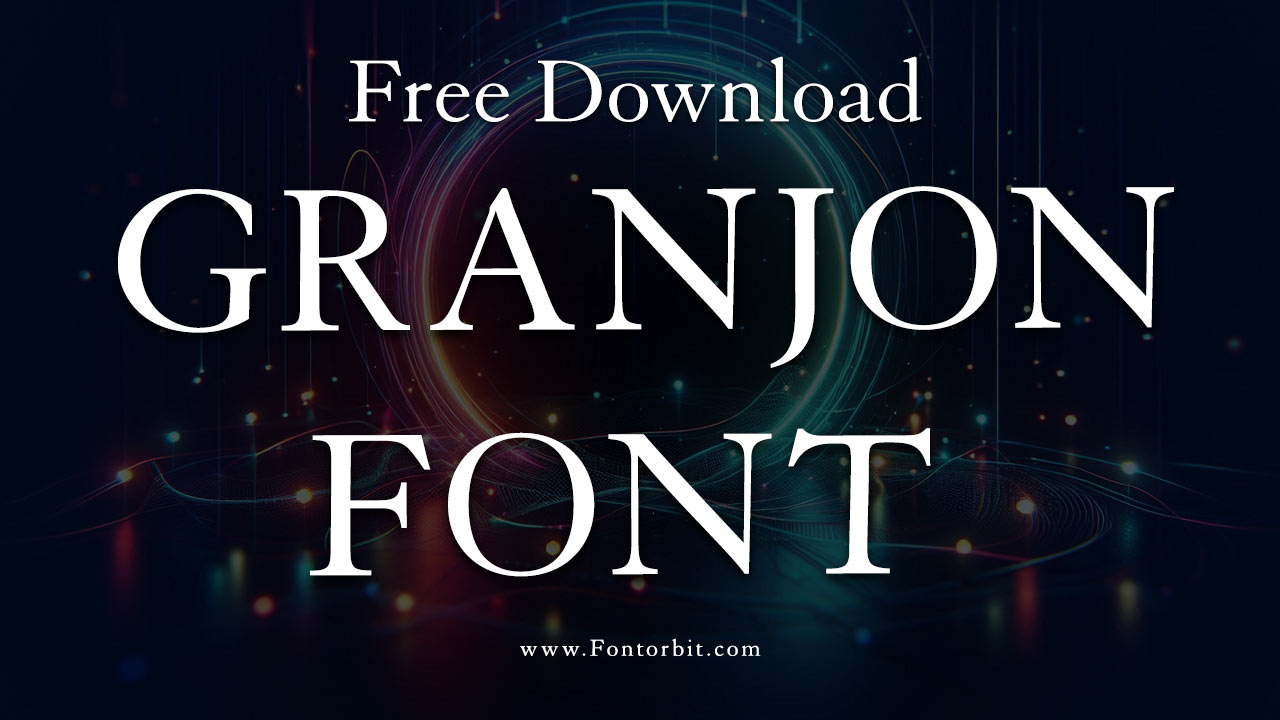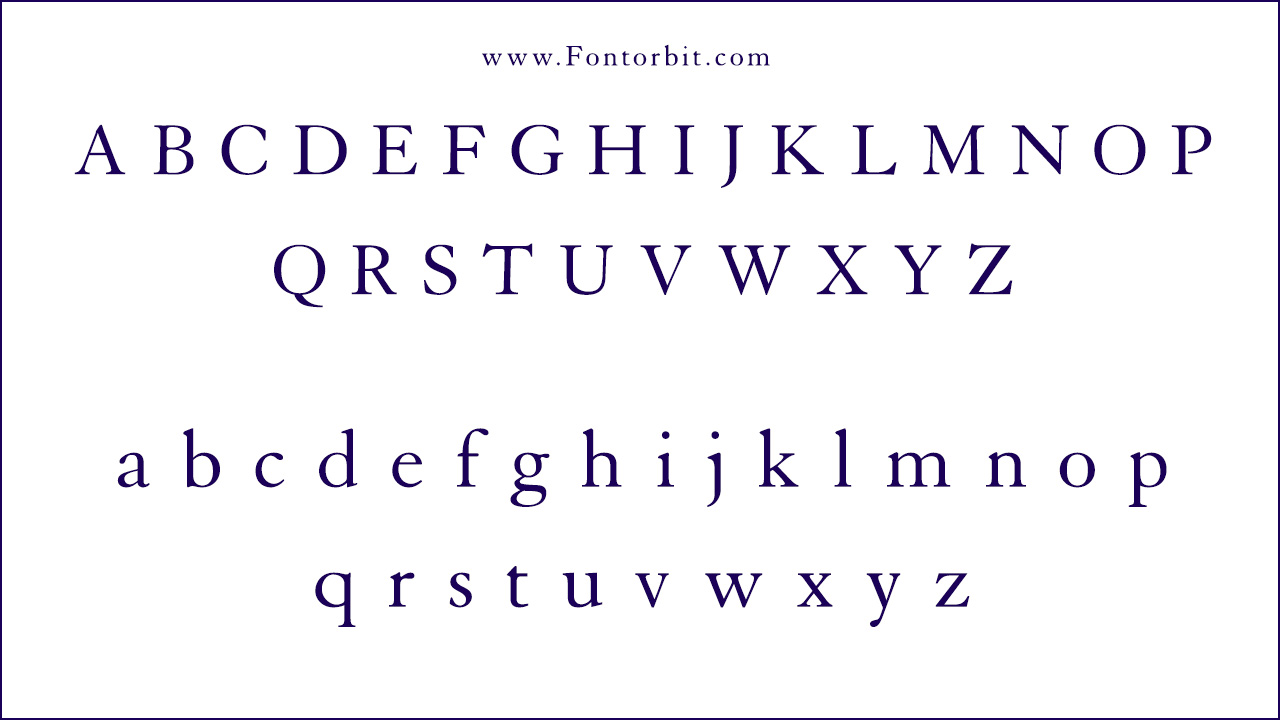
George W. Jones designed Granjon Font, a classic old-style serif typeface, for the British branch of Linotype. Released in 1928–1929, this font is based on the iconic Garamond typeface used in book printing.
Claude Garamond inspired the Roman characters, while Robert Granjon crafted the italic forms.” Granjon’s elegant design has made it a popular choice in both print and digital formats.
Granjon Font Family Includes
- Granjon Roman
- Granjon Italic
- Granjon Bold
Notable Uses Of Granjon Font
This Font’s refined, traditional aesthetic makes it an excellent choice for:
- Book design
- Posters, banners, and billboards
- Event and conference branding
- Office branding
- Catalogs
- Animated logos
- Menus
- Advertisements
Granjon Font Found In Use
Book printers widely use the Granjon Font because of its clear readability in smaller sizes. You often see it in literary works and educational texts due to its sophisticated yet practical design, which is appreciated in high-quality print materials.
Granjon Font is a beautifully crafted old-style serif typeface, perfect for projects requiring a touch of classic elegance. With its strong readability and clean design, it has been a popular choice for designers across multiple fields. Whether you are working on book layouts, banners, or branding, Granjon Font delivers both functionality and style.
FAQs On The Granjon Font
2.Who Designed Granjon Font?
Granjon Font was designed by George W. Jones, based on the works of Claude Garamond and Robert Granjon.
3.What Type Of Font Is Granjon?
Granjon is an old-style serif typeface known for its elegant and classic design.
4.Where Can I Use Granjon Font?
Granjon Font is suitable for book design, branding, posters, advertisements, and more.